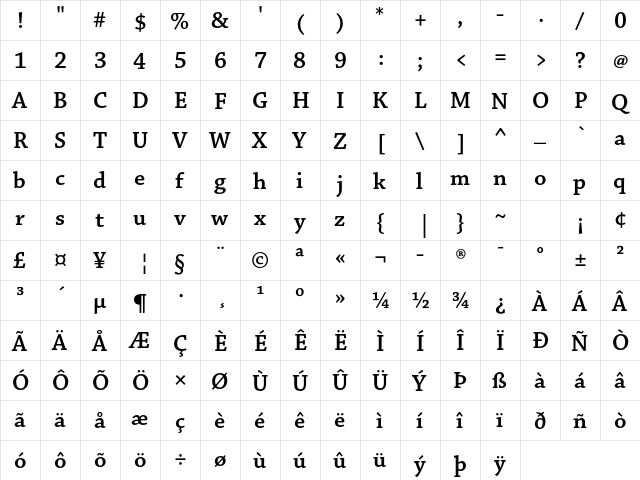
Chaparral Pro Semibold
| Designer | Carol Twombly |
Design Context for Chaparral Pro Typeface
Chaparral Pro takes a measured approach to typography — its balanced proportions and neutral character make it a reliable workhorse for both digital and print work. The heavy weight commands attention and anchors typographic hierarchies.
Pro Tip: Pair Chaparral Pro with a font of contrasting weight or personality to build a more expressive typographic hierarchy.